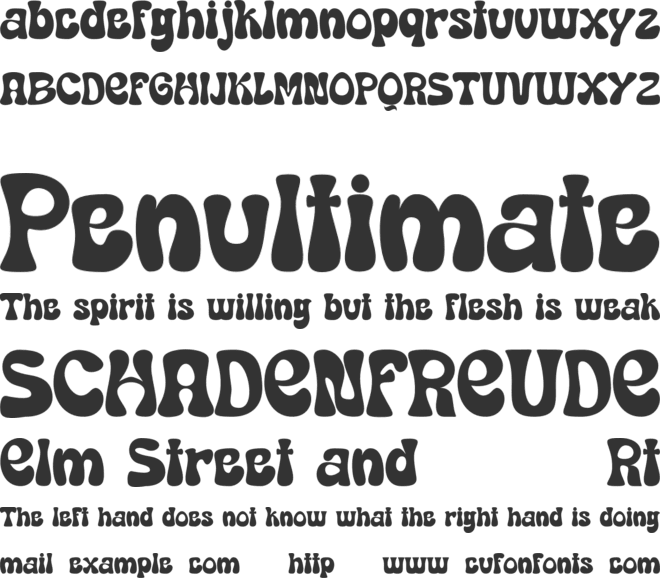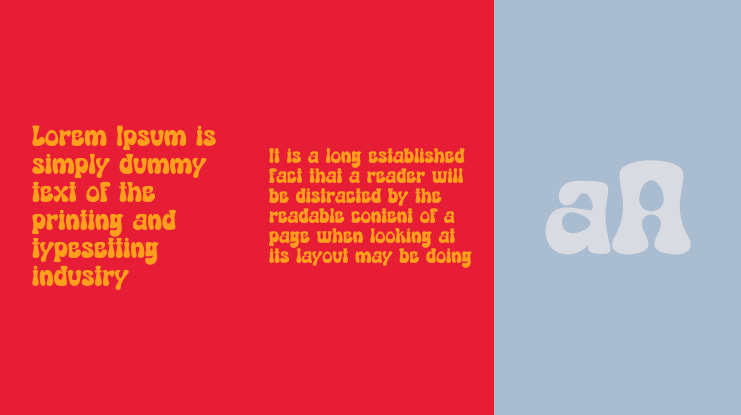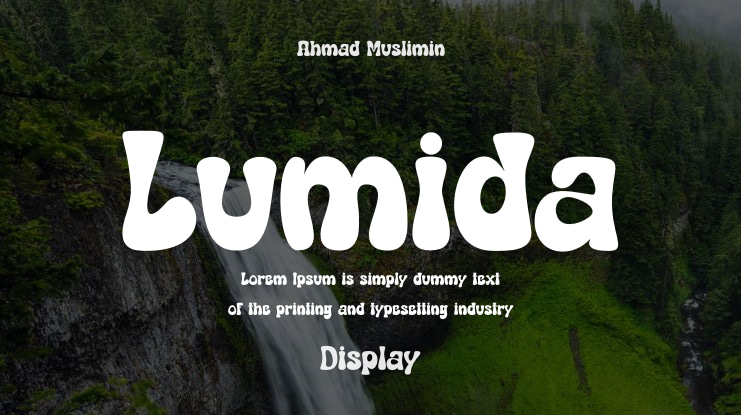
Lumida Font by Koplexs Studio is a stylish and playful groovy font inspired by the nostalgic energy of the retro 70s era. Designed with smooth honey-like curves and bold rounded forms, this display font captures both warmth and creativity. It’s a fancy and fun font that brings a cozy, joyful feel to your projects while maintaining readability and versatility. Perfect for designers who want their work to look modern yet timeless.
This holiday and craft font fits beautifully across logos, posters, covers, social media graphics, packaging, and branding materials. Whether you’re creating a headline font for a campaign or a logo font for a trendy café, Lumida adds that vibrant retro charm. A true essential for creatives, Lumida Font ensures every design stands out with personality and playful energy. Download Lumida Font today and elevate your creative projects globally.